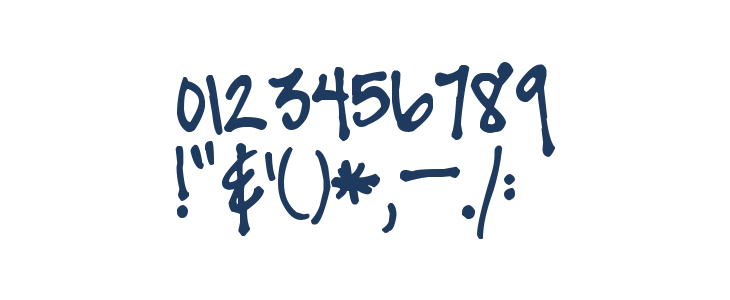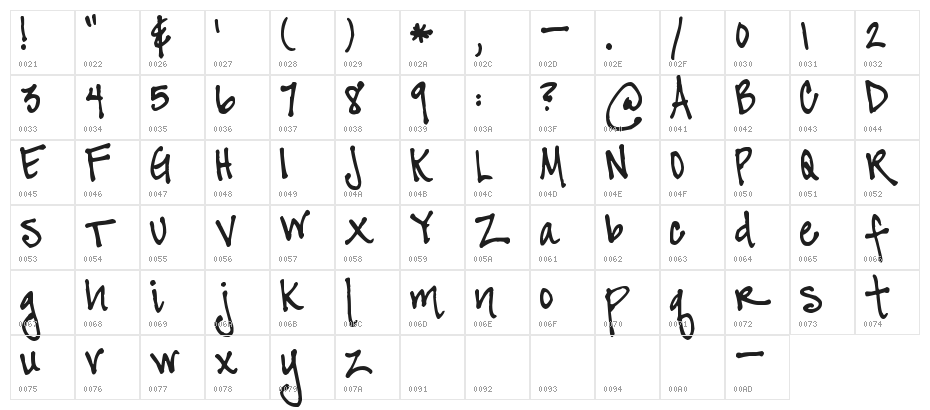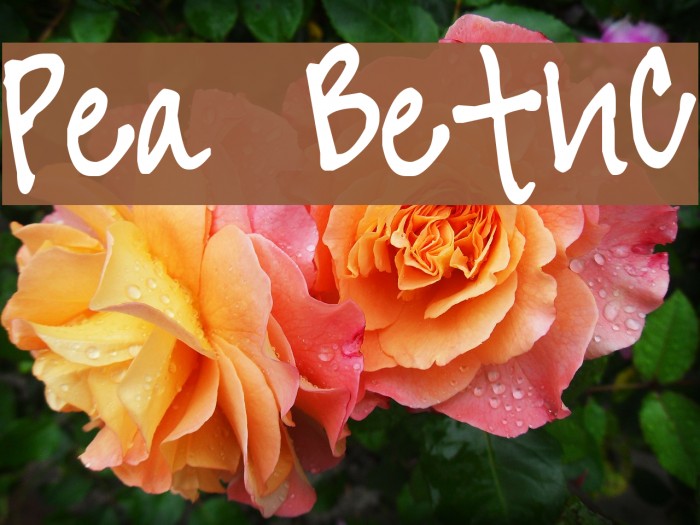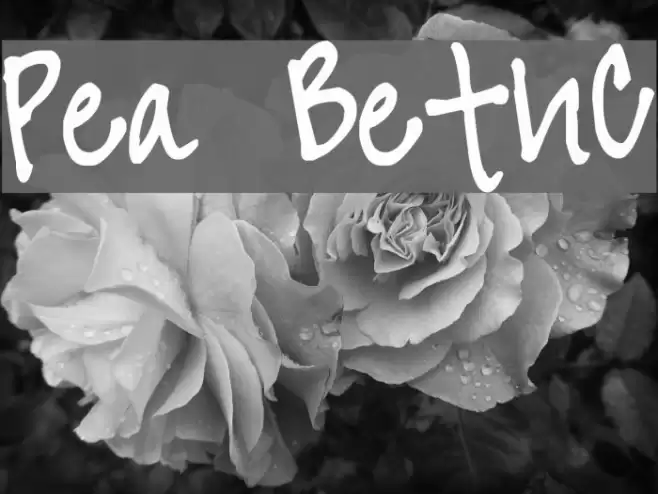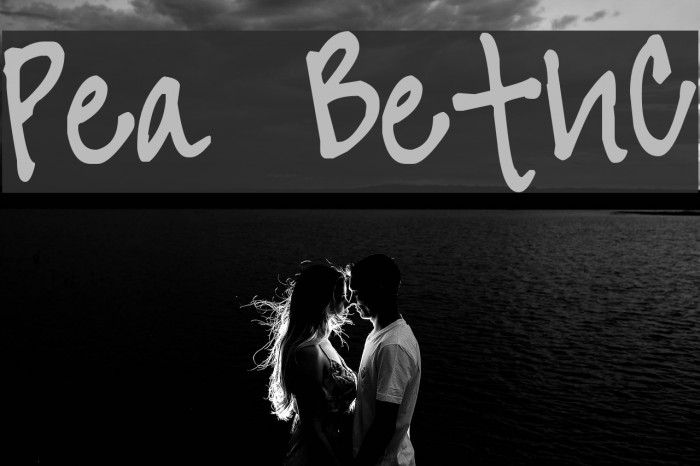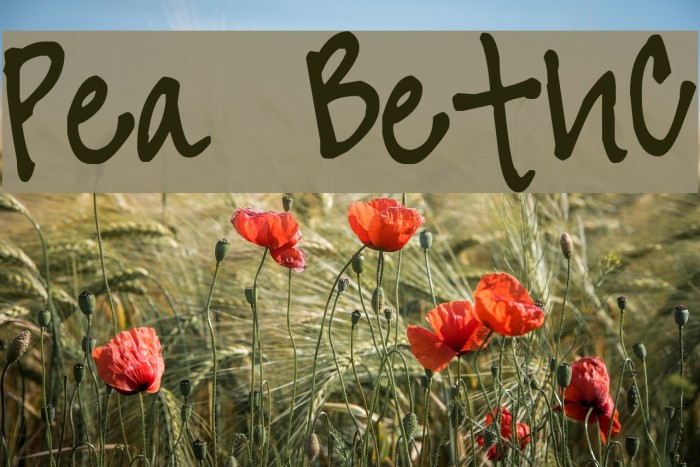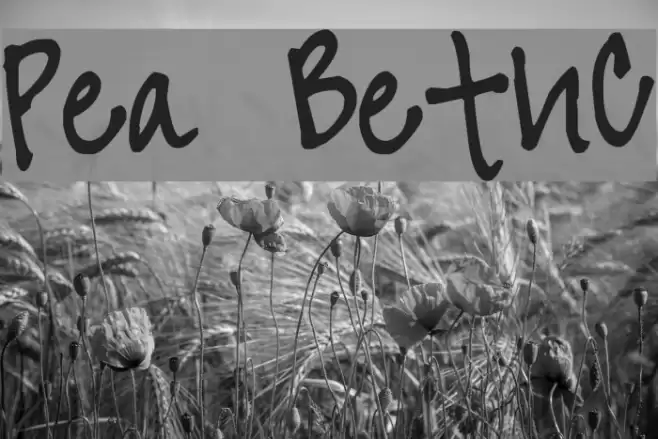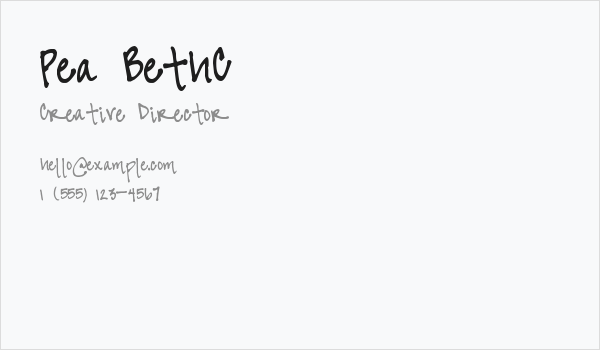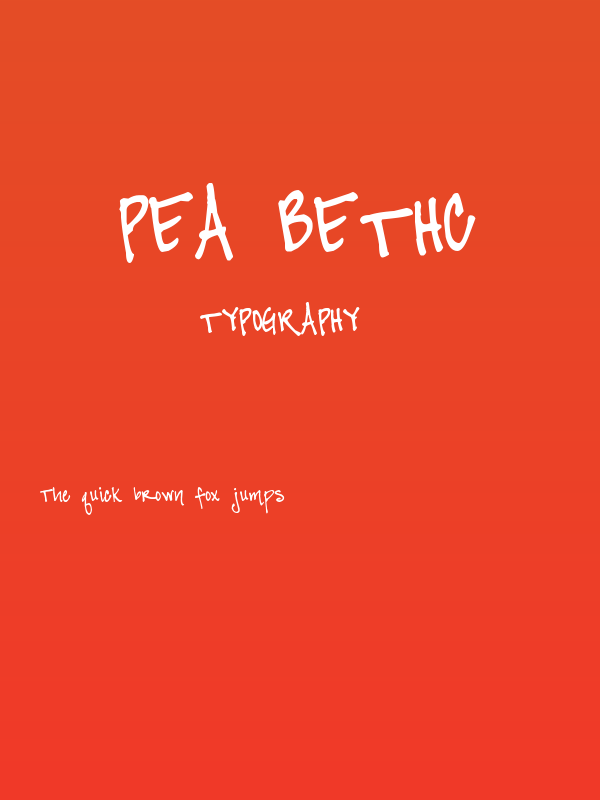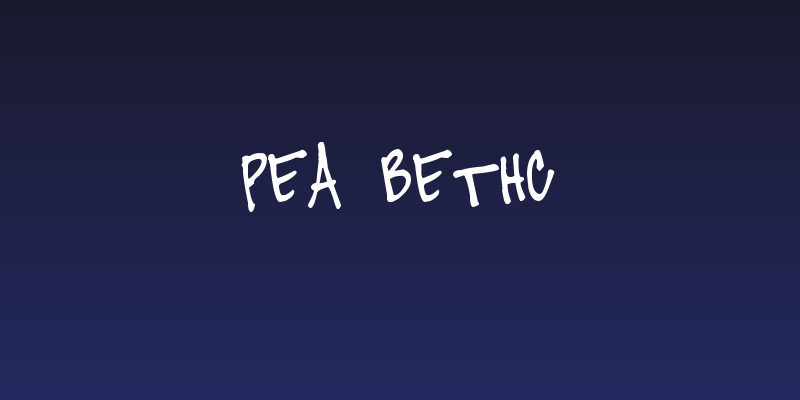
Pea BethC Font
Pea BethC Description
This font exhibits a playful and casual handwritten style, characterized by its uneven strokes and slightly irregular letterforms. The uppercase and lowercase letters maintain a consistent flow, giving it an organic and personal touch. The numbers and special characters follow the same informal aesthetic, making it suitable for projects that require a friendly and approachable feel. The strokes vary in thickness, adding to the hand-drawn appearance, while the overall design remains legible and clear.
| Proposed Projects | Ideal for greeting cards, personal notes, informal invitations, and creative projects that benefit from a friendly, handwritten look. |